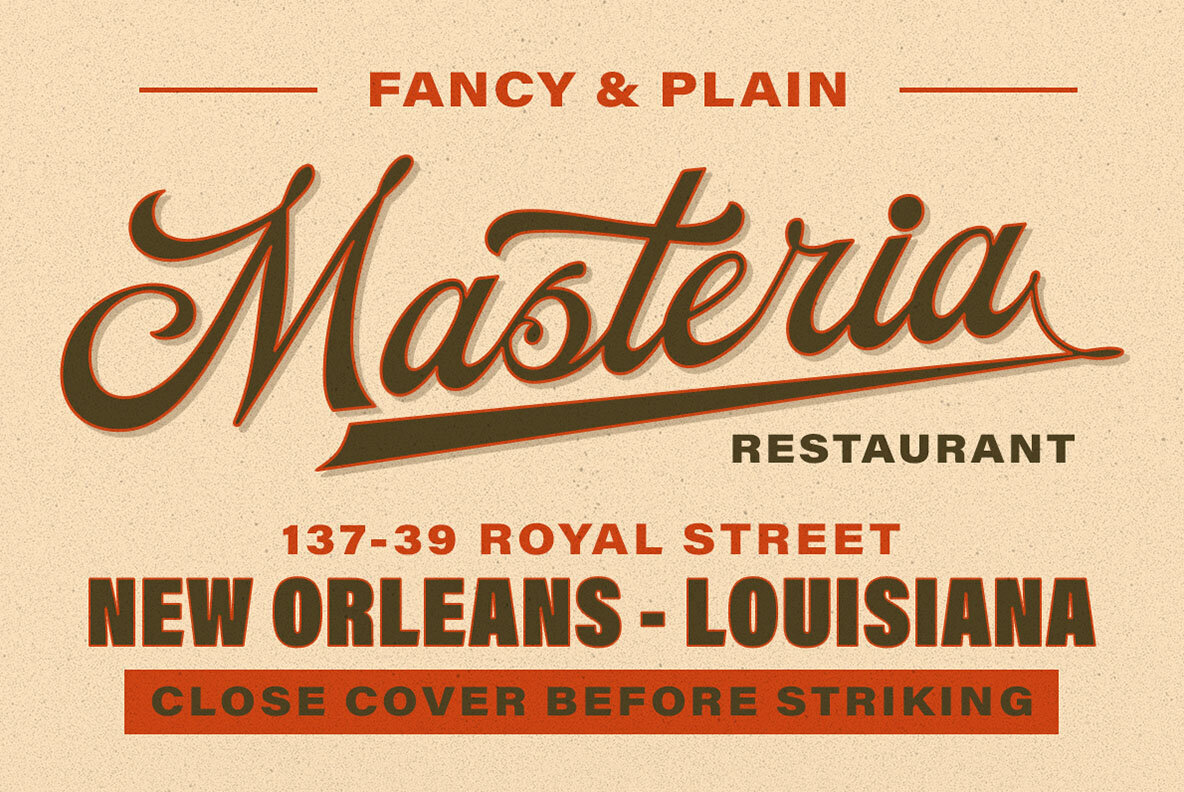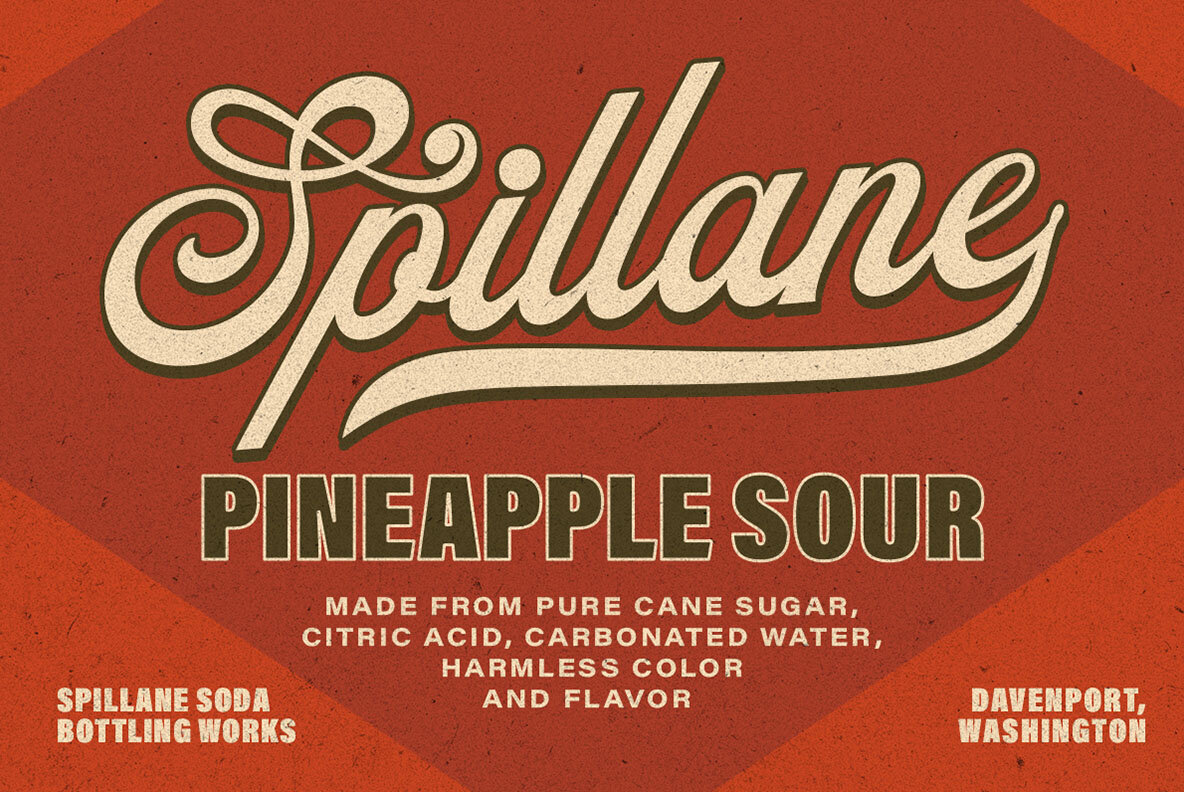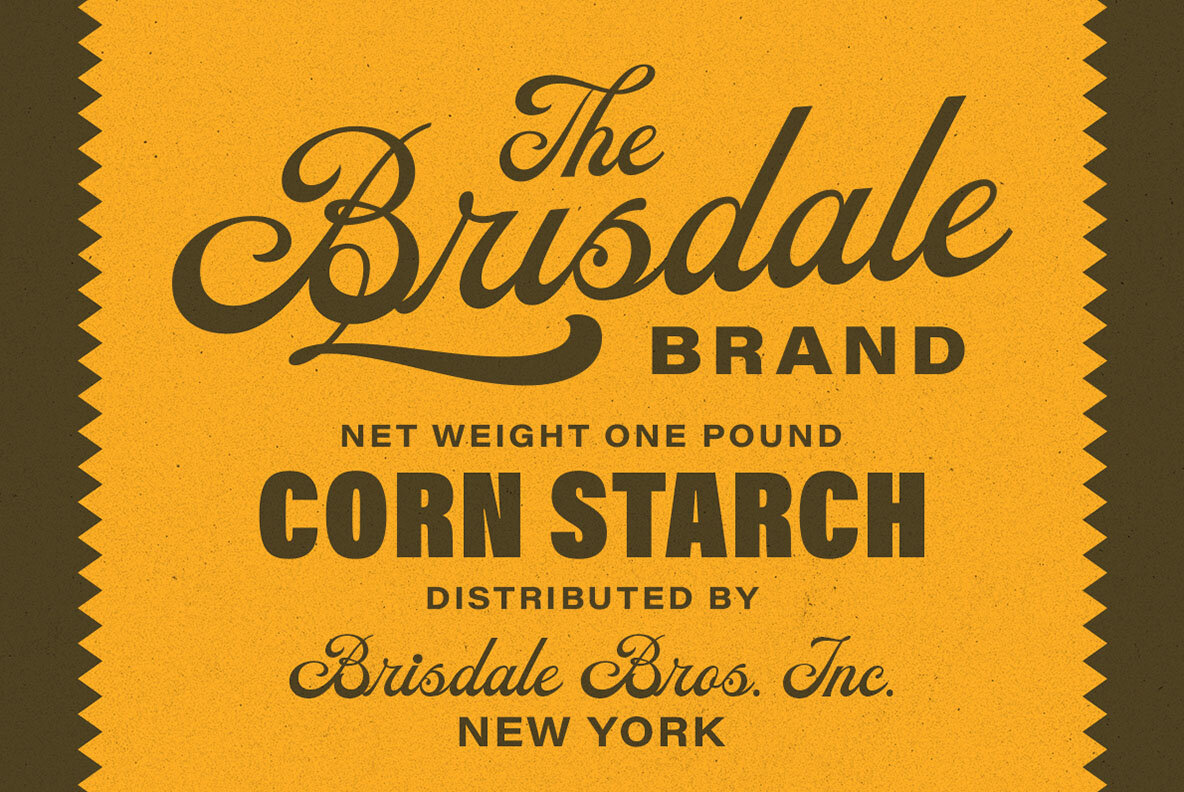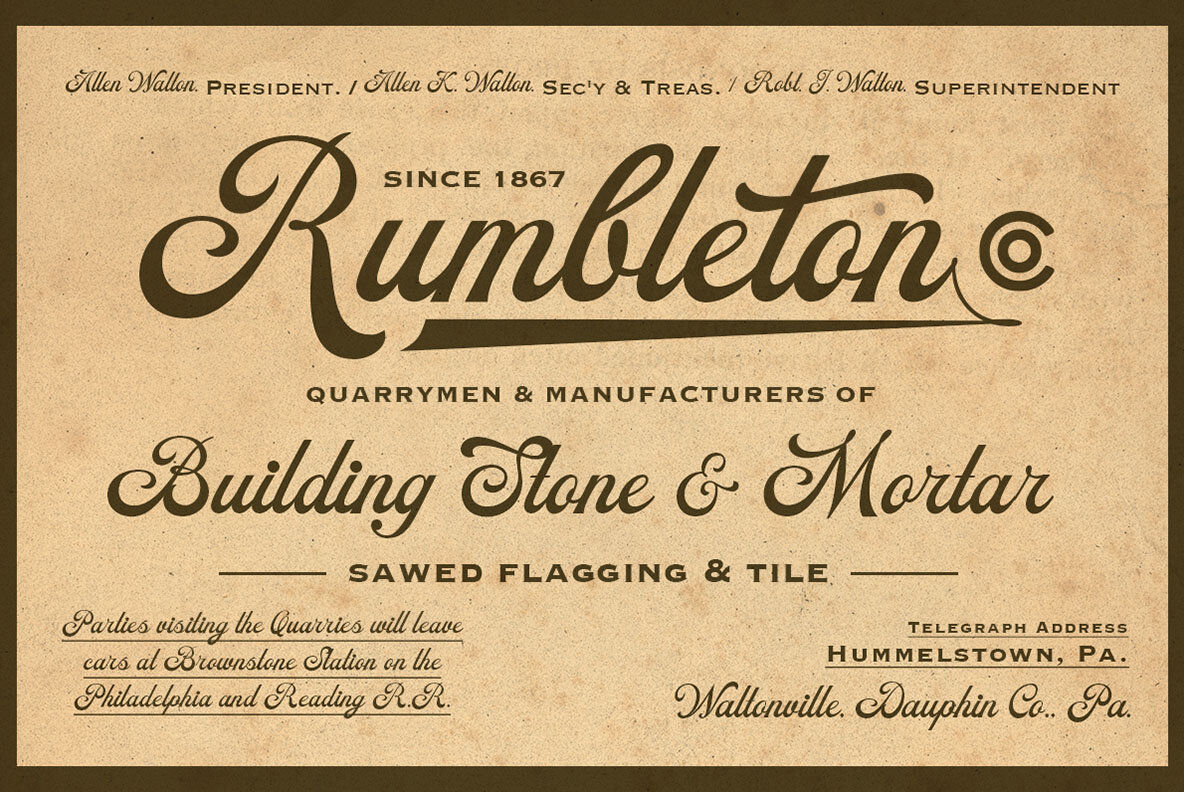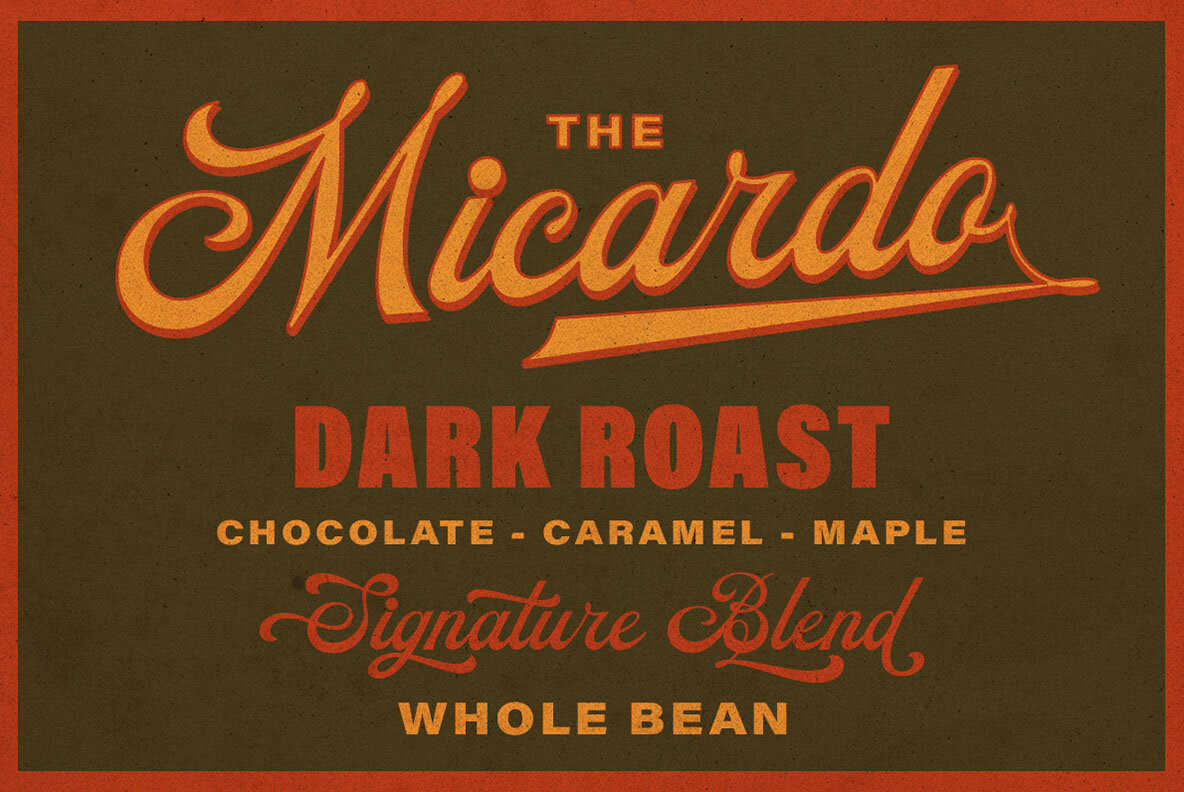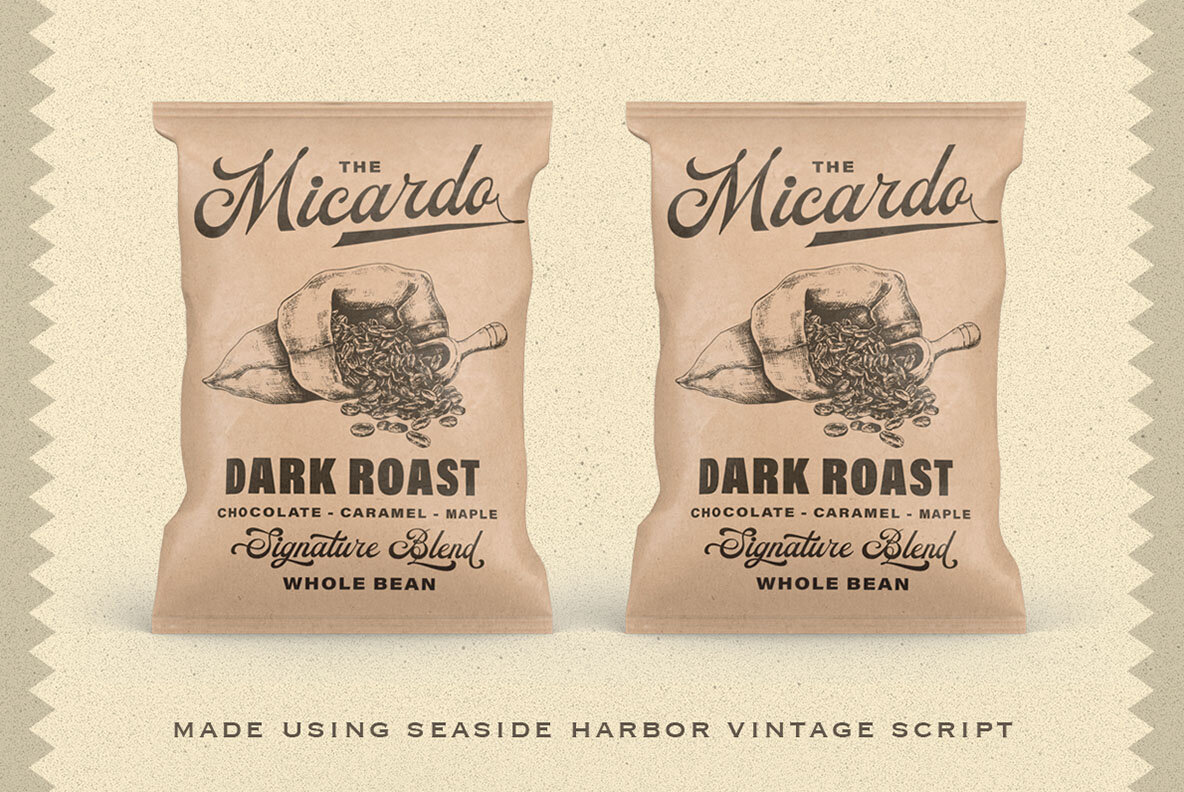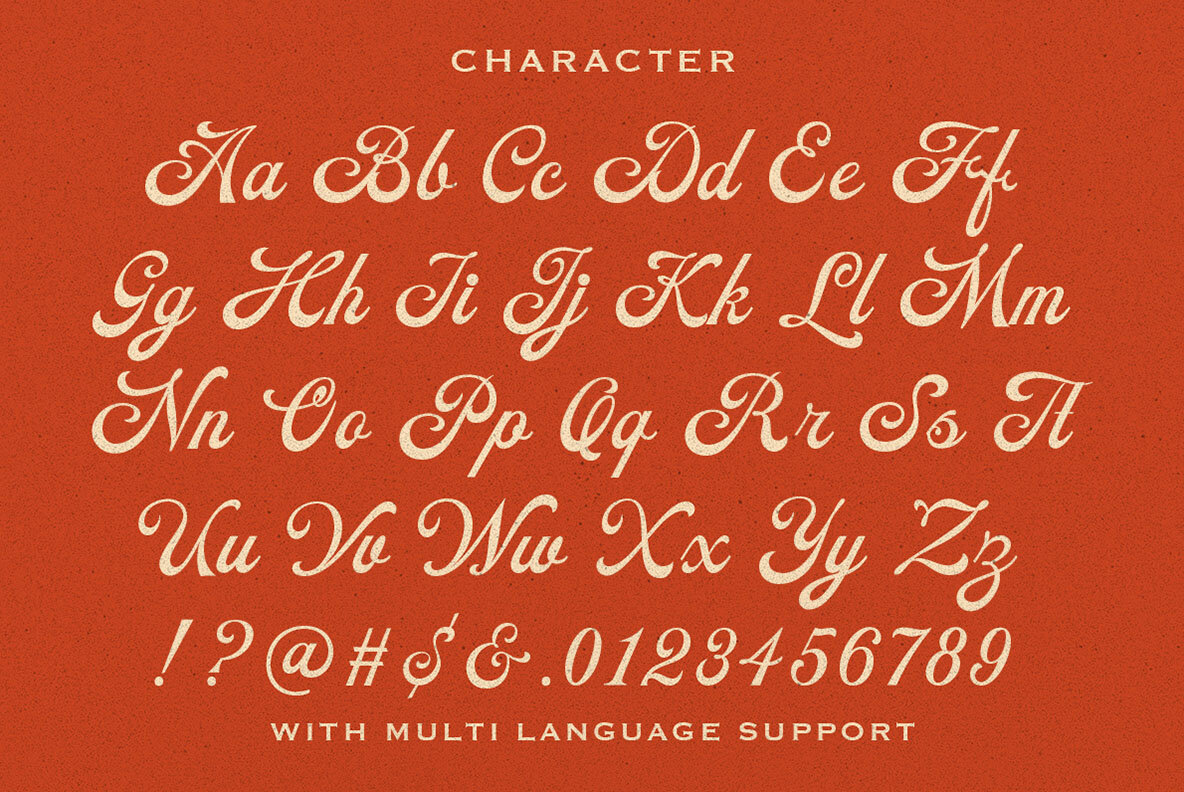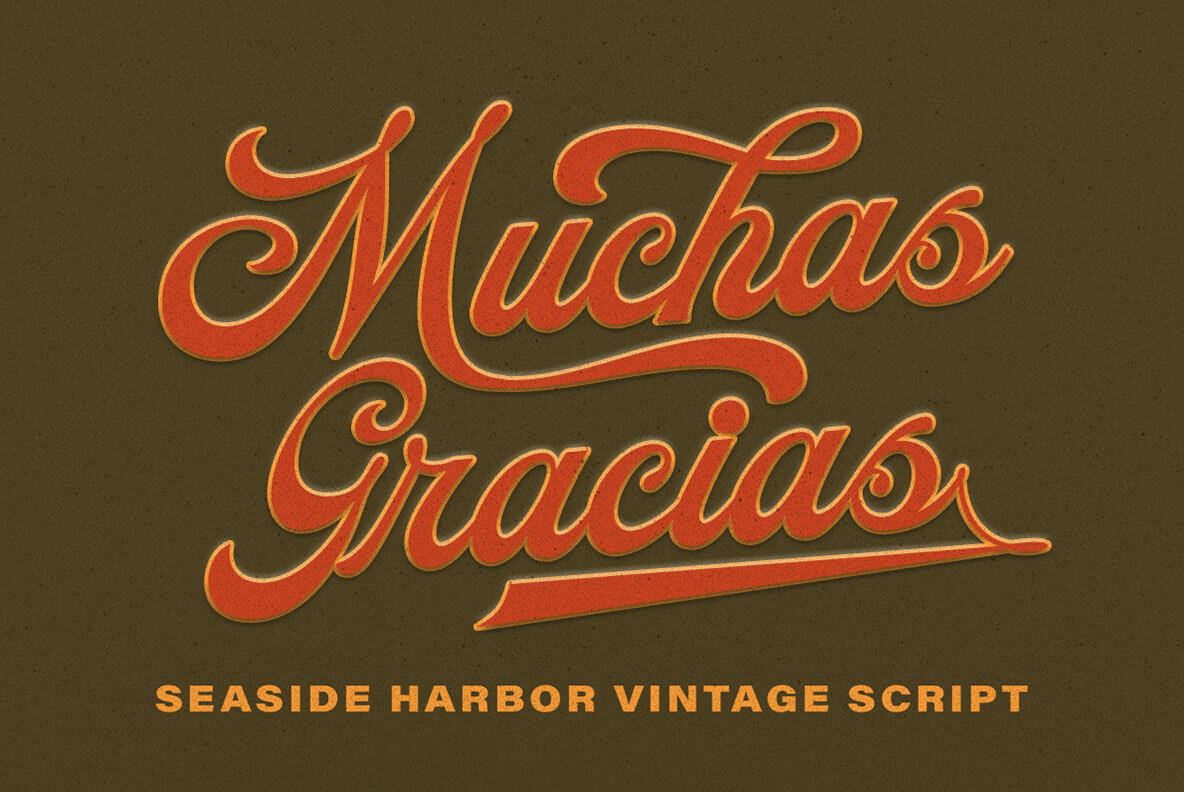
The Seaside Harbor Font
Seaside Harbor
The Seaside Harbor is a vintage script typeface that captures a nostalgic atmosphere with its retro styling. Ideal for projects requiring a vintage touch, its unique swashes enhance its charm, making it perfect for creating beautiful, vintage lettering effortlessly. Whether you're designing logos, invitations, labels, magazines, or greeting cards, this typeface adds a distinctive, classic feel to various formal and decorative applications, including fashion, packaging, and stationery.
Featuring uppercase and lowercase letters, numbers, punctuation, alternates and ligatures, and multilingual support, The Seaside Harbor offers comprehensive versatility. It is PUA encoded, allowing for easy access to all glyph variations. To maximize the font’s capabilities, use it with programs that support OpenType features and Glyphs panels, such as Adobe applications and Corel Draw.